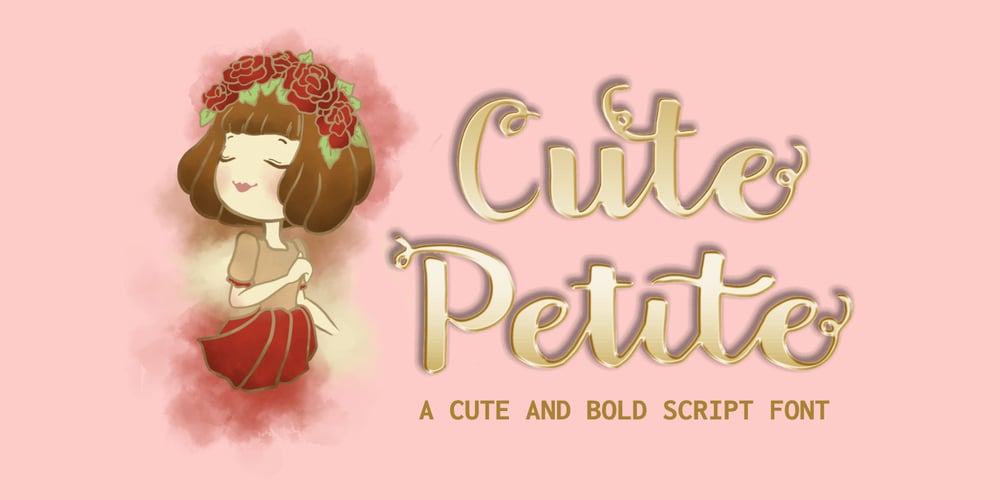
Cute Petite
Cute Petite font
Cute Petite Font Family was designed by Monica Tatontos and published by Moncimon. Cute Petite contains 1 styles and family package options. The “Cute Petite” script font is a delightful addition to Moncimon’s collection. It beautifully combines petite charm with cozy bulkiness, offering a unique hand-drawn style with intricate details that add warmth and personality to any design. Whether you’re working on invitations, cards, food branding, t-shirts, or social media content, “Cute Petite” provides the perfect touch of playful elegance to make your designs stand out.